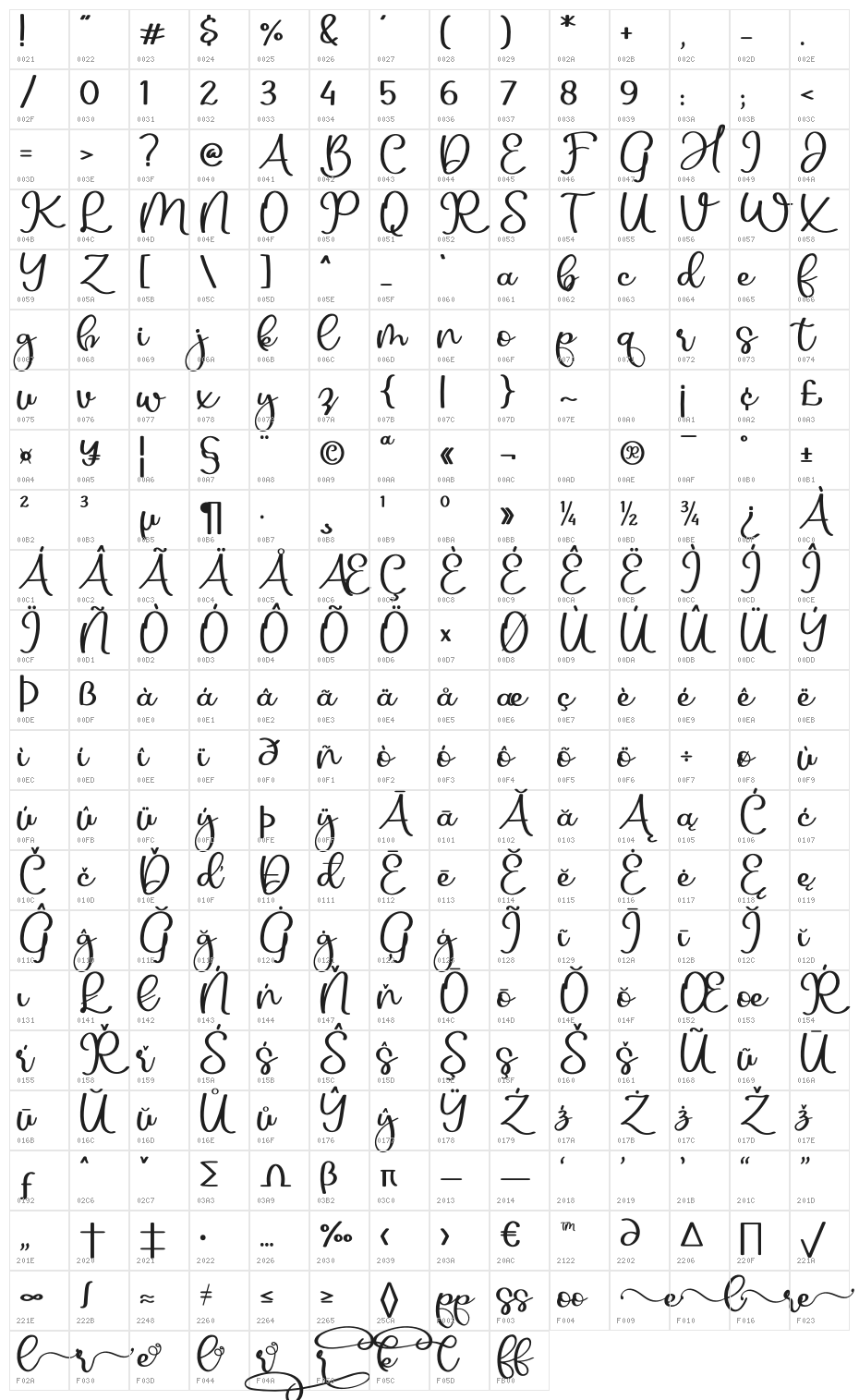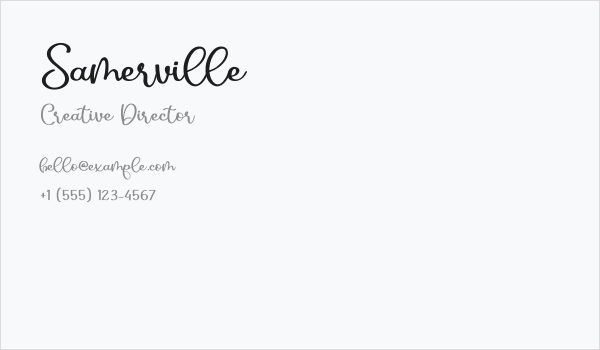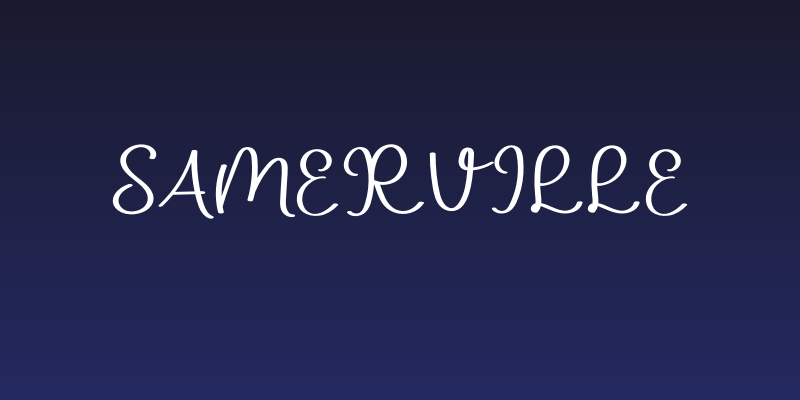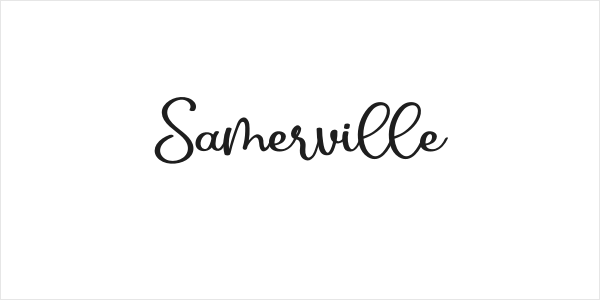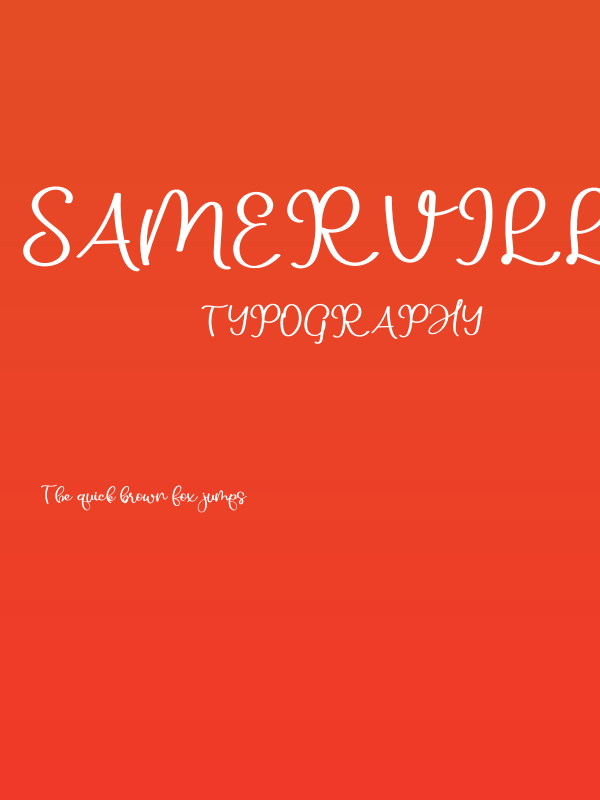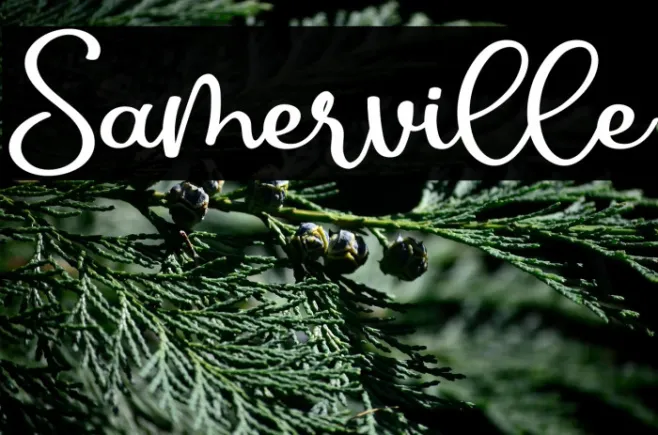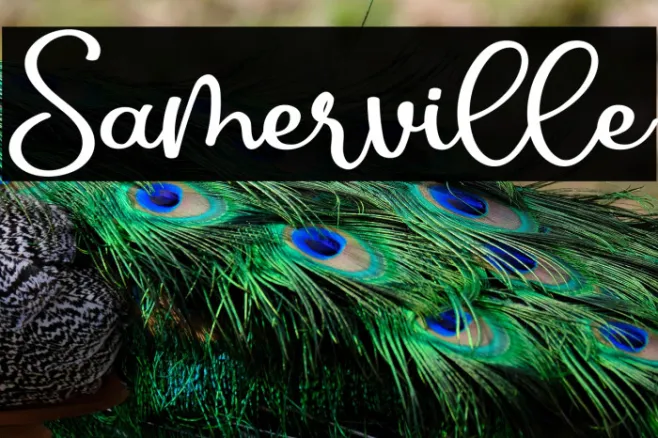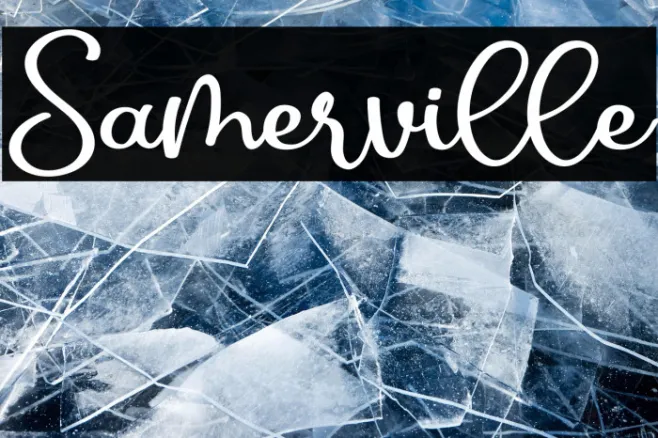
Samerville Font
Samerville Description
This font features a playful and elegant script style, characterized by its flowing, cursive letterforms. The uppercase letters are slightly more restrained, maintaining a consistent height and width, while the lowercase letters exhibit a more dynamic and whimsical flair with loops and swashes. The numbers are clear and legible, maintaining the script's overall aesthetic. Special characters are creatively integrated, matching the font's fluid style. The font's overall appearance is both sophisticated and approachable, making it versatile for various design applications.
| Overall Style | Elegant, Playful |